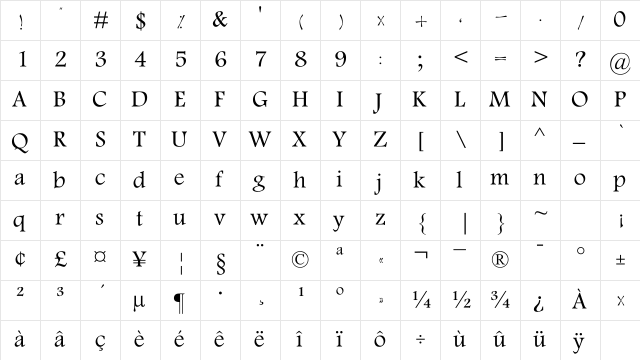
arabswell_2 Regular
Design Context for arabswell_2 Typeface
arabswell_2 takes a measured approach to typography — its balanced proportions and neutral character make it a reliable workhorse for both digital and print work.
Pro Tip: Use arabswell_2 in both headline and body roles to test its range before committing to a single application.